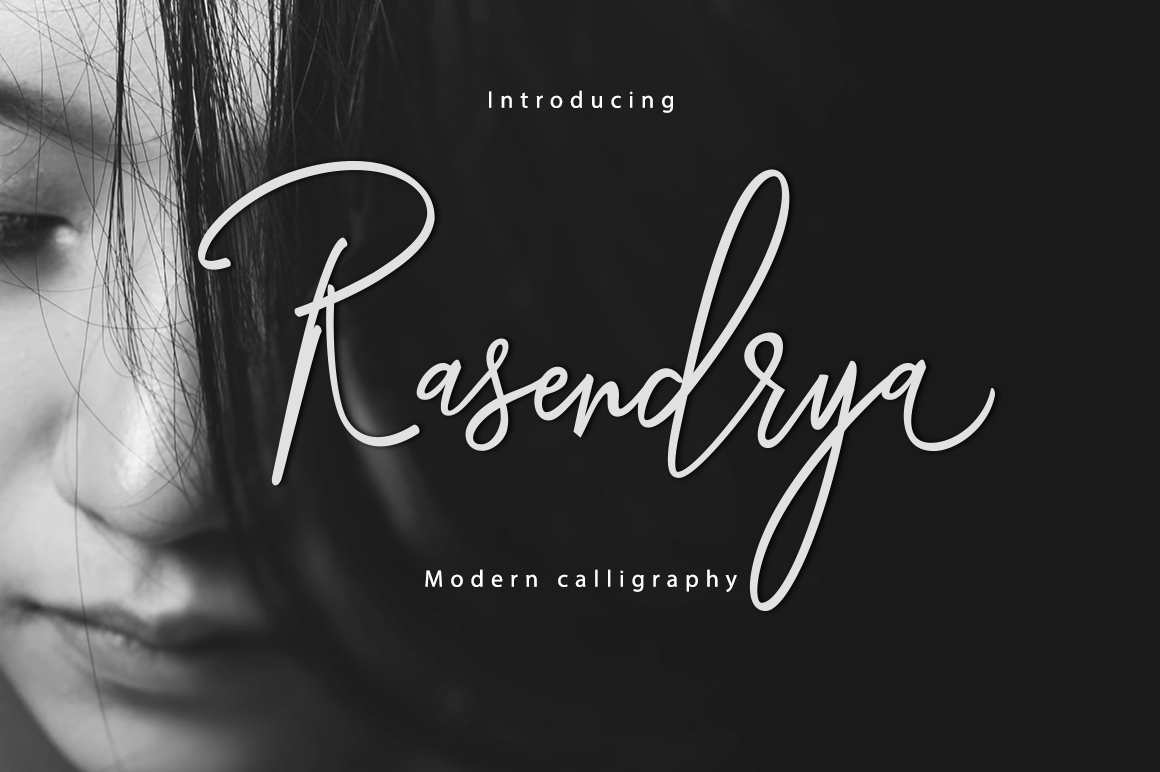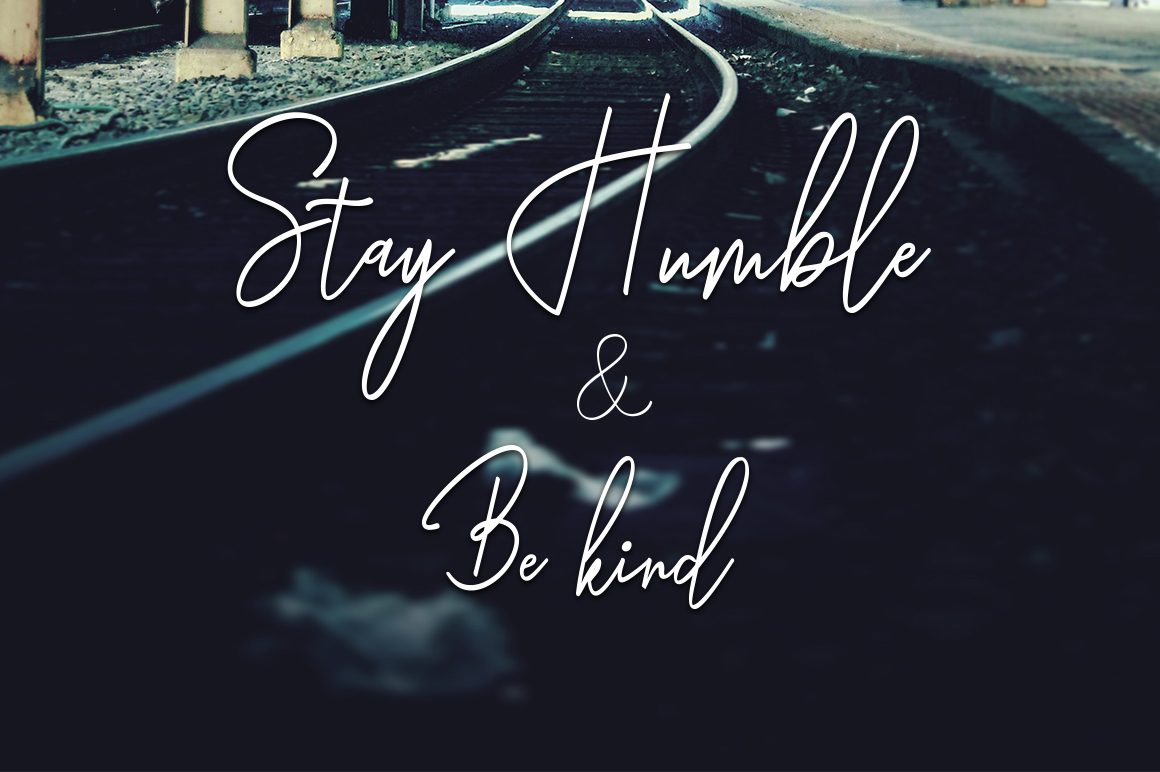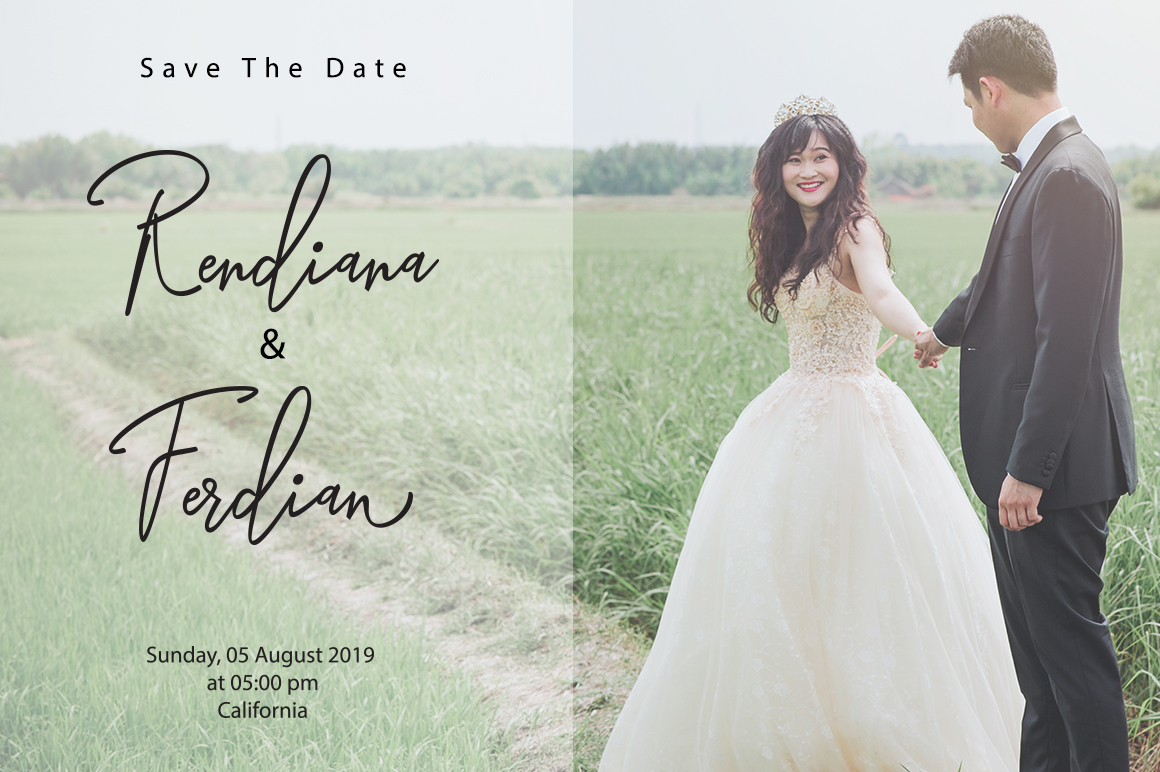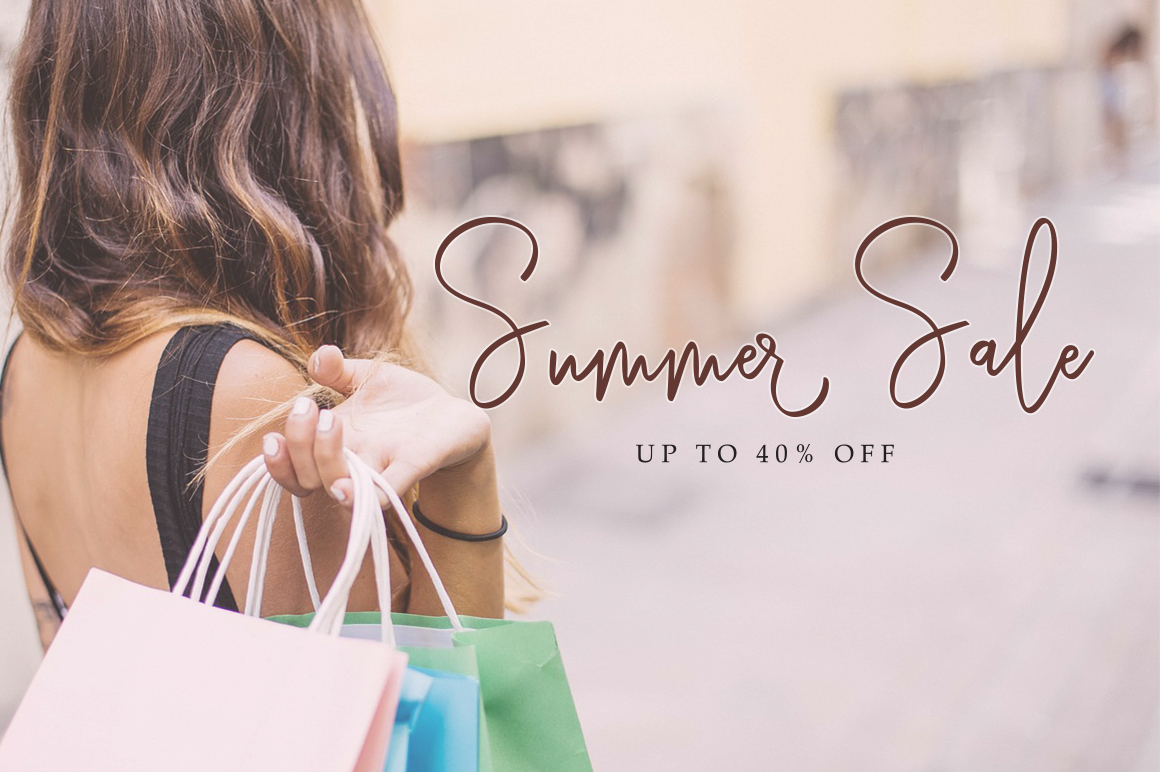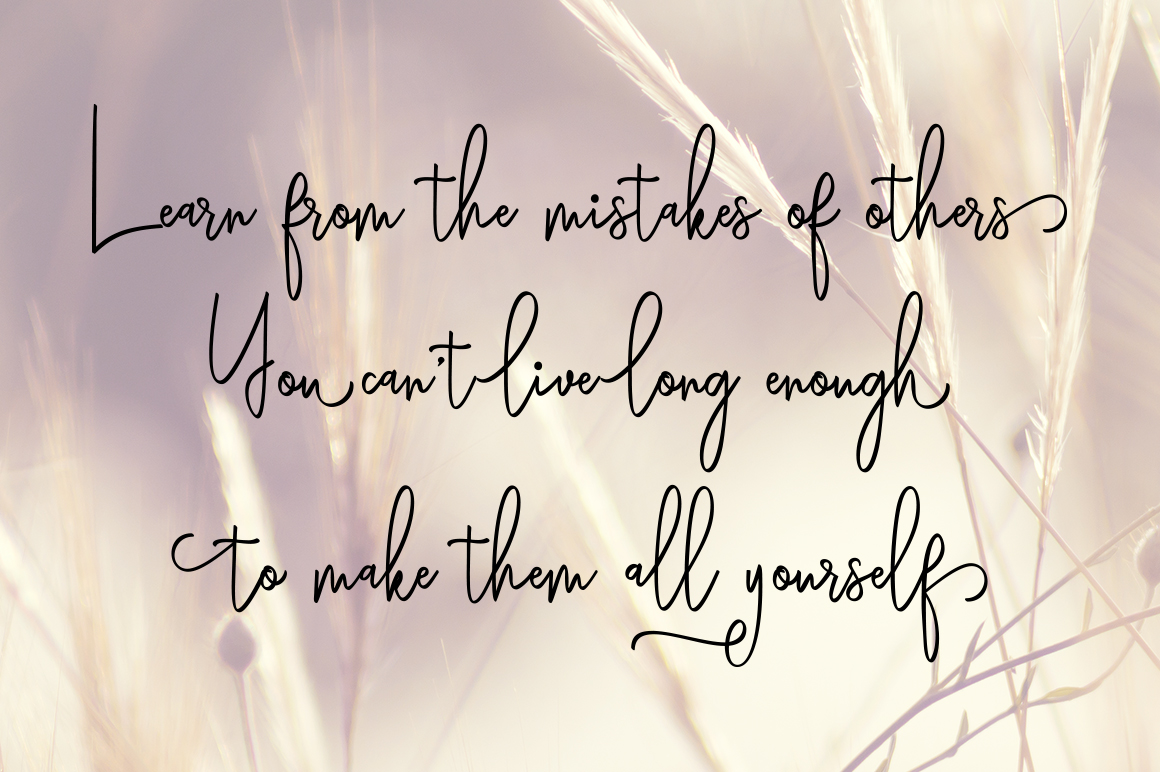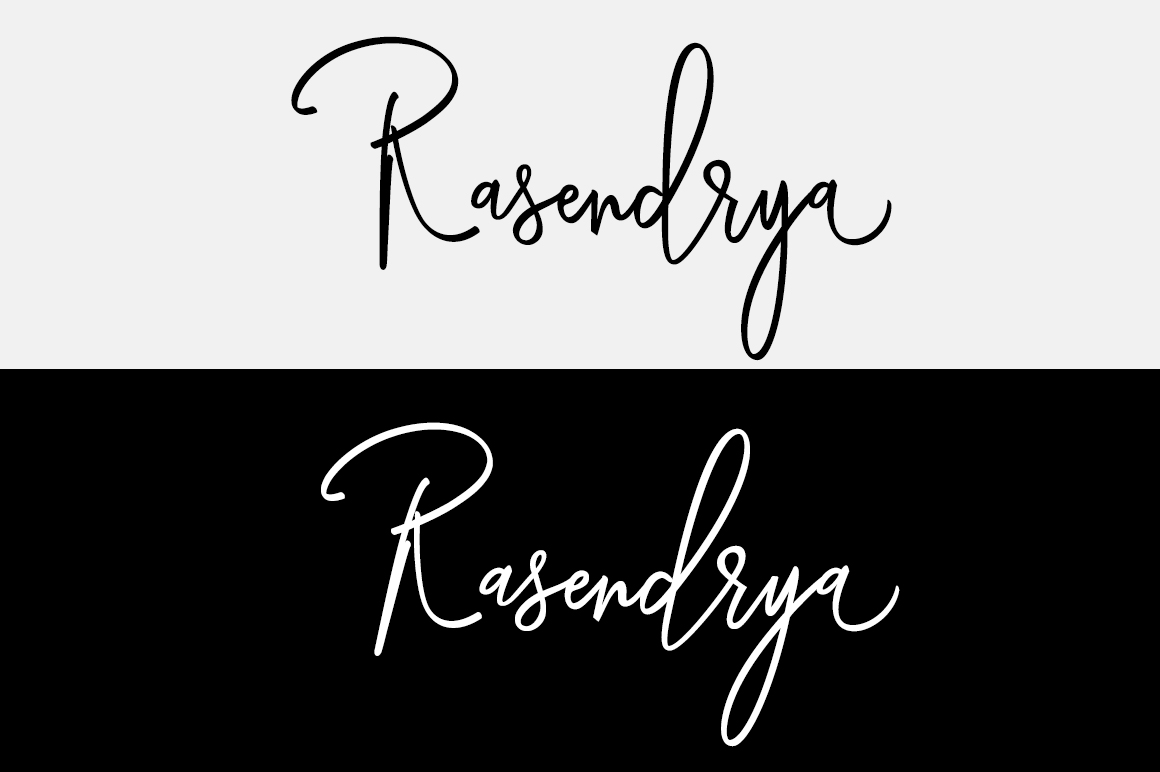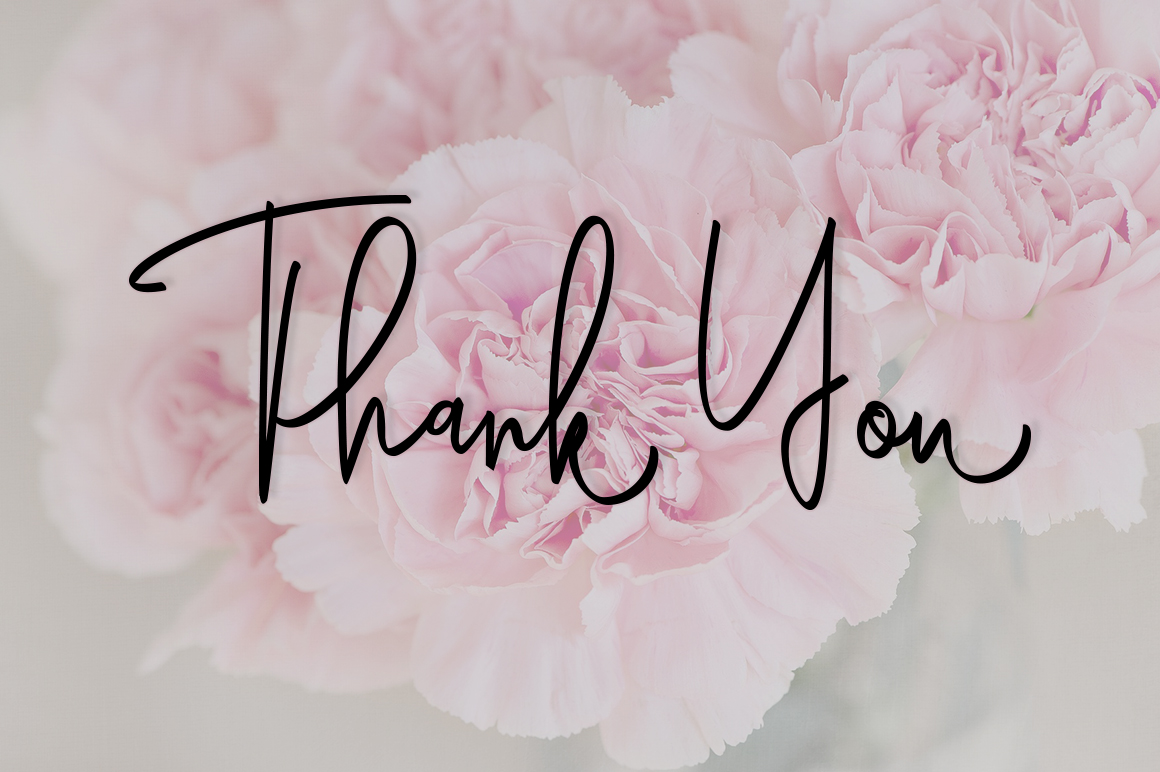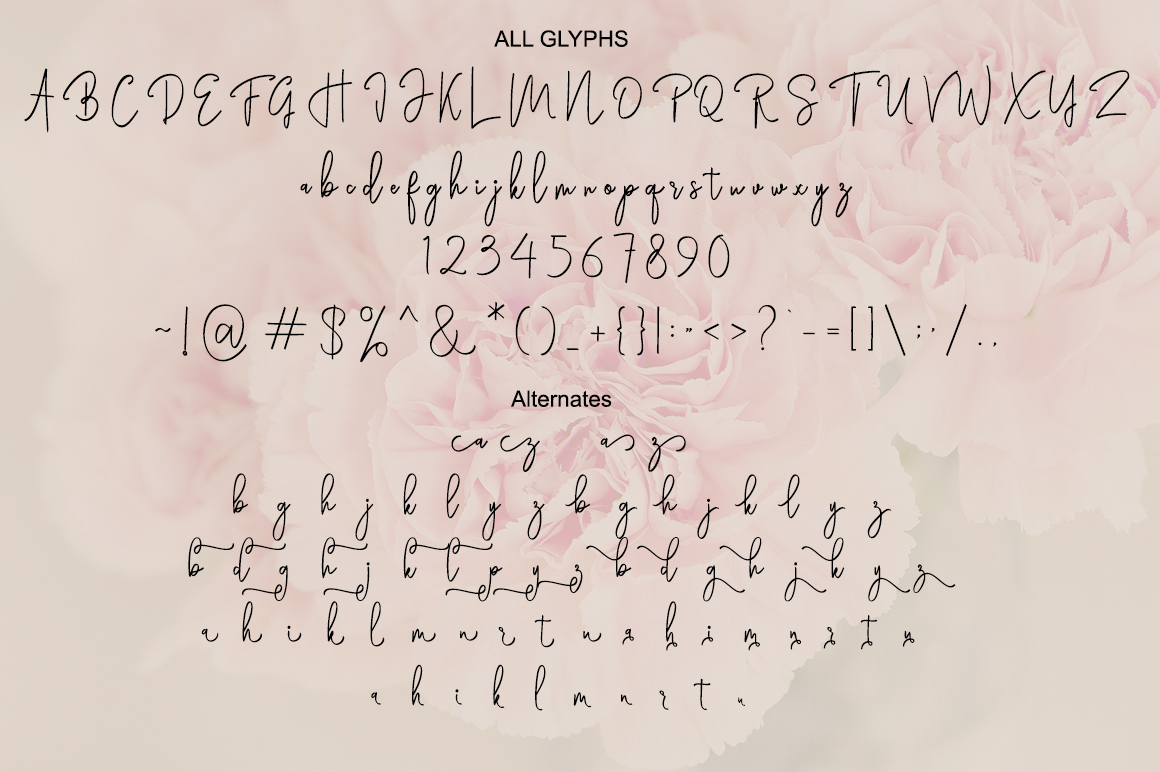
Rasendrya Font
About Rasendrya Font
Rasendrya is a sleek and casual script, free-form and unique. Rasendrya adds a signature style to any project, and looks phenomenal against stark and moody designs.